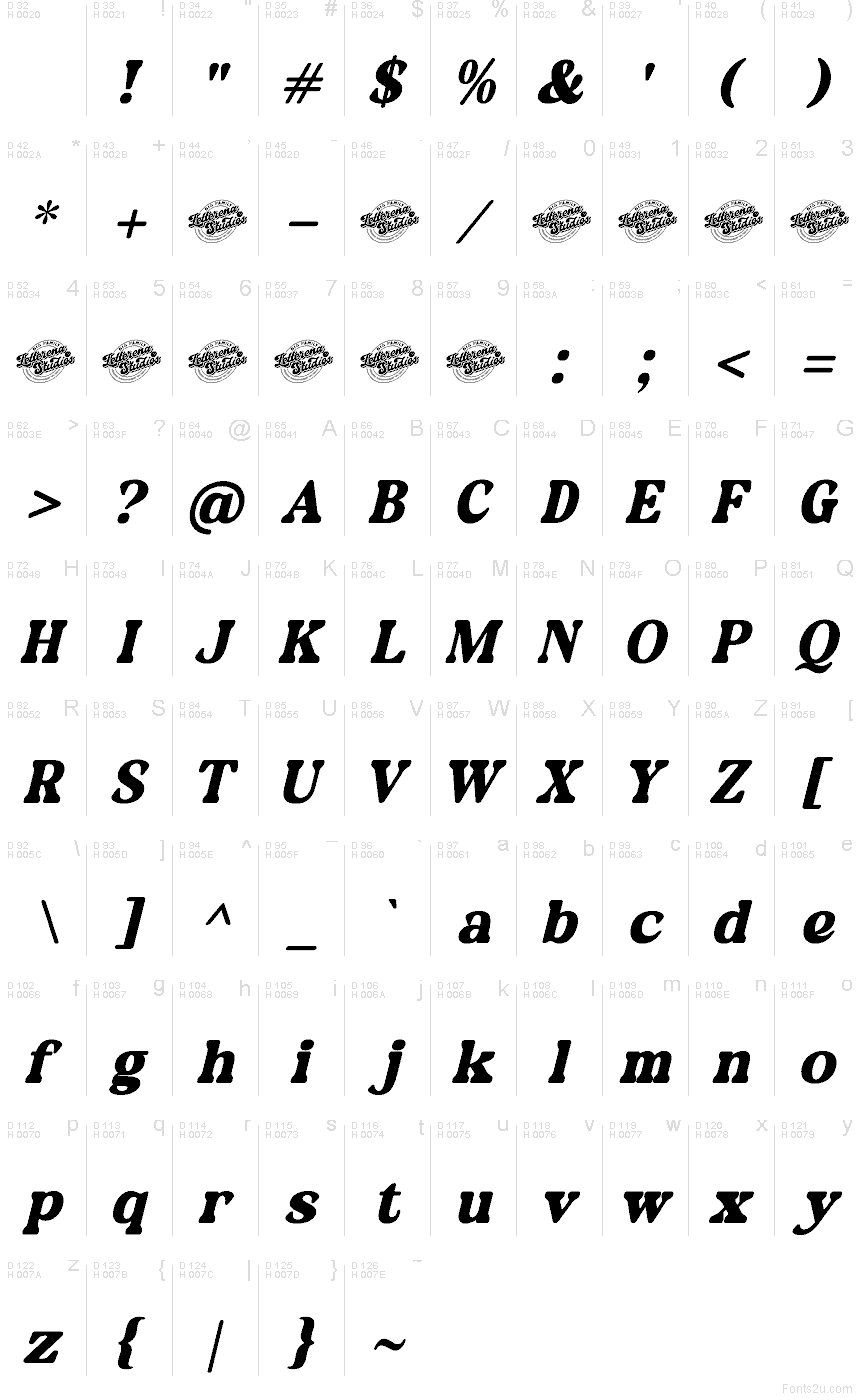
Daylist Beach DEMO VERSION Italic
Daylist Beach Italic font by Letterena Studios is a free serif typeface with a lush, sun-soaked sway that feels straight out of a vintage seaside postcard. Its bold, inky strokes, rounded edges, and generous slant create an effortless sense of motion, like letters brushed quickly across a signboard before the tide rolls in. The rhythm is dense and confident, giving every word a warm, nostalgic weight that still reads clearly at a glance.
Using Daylist Beach Italic, you can give instant character to beachwear logos, drink labels, summer event posters, travel branding, social media graphics, and bold packaging. This free font shines in large titles and short phrases where its curvy silhouettes can really breathe. For longer supporting text, pair Daylist Beach Italic with a clean sans serif at smaller sizes to keep layouts fresh, airy, and easy to read.